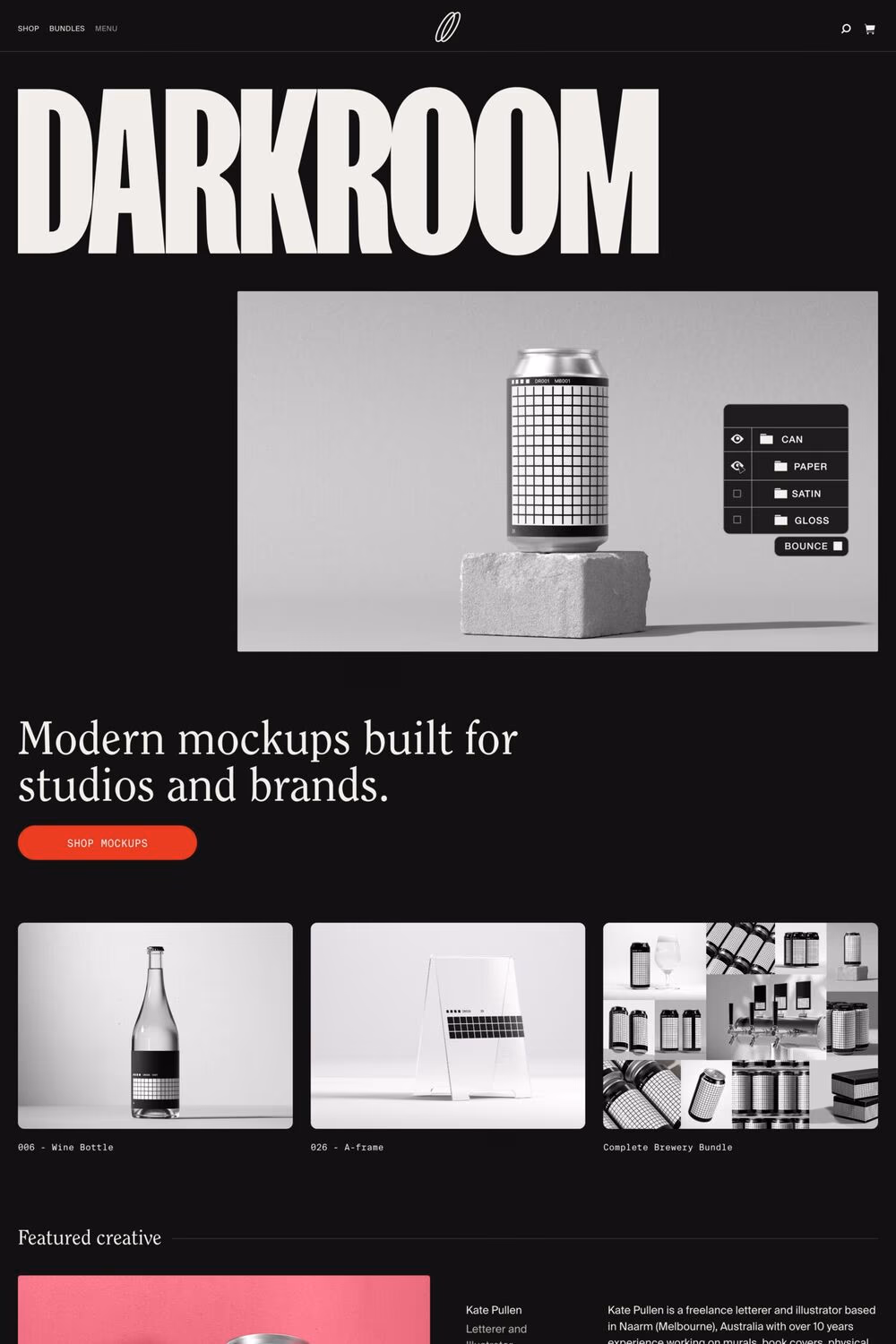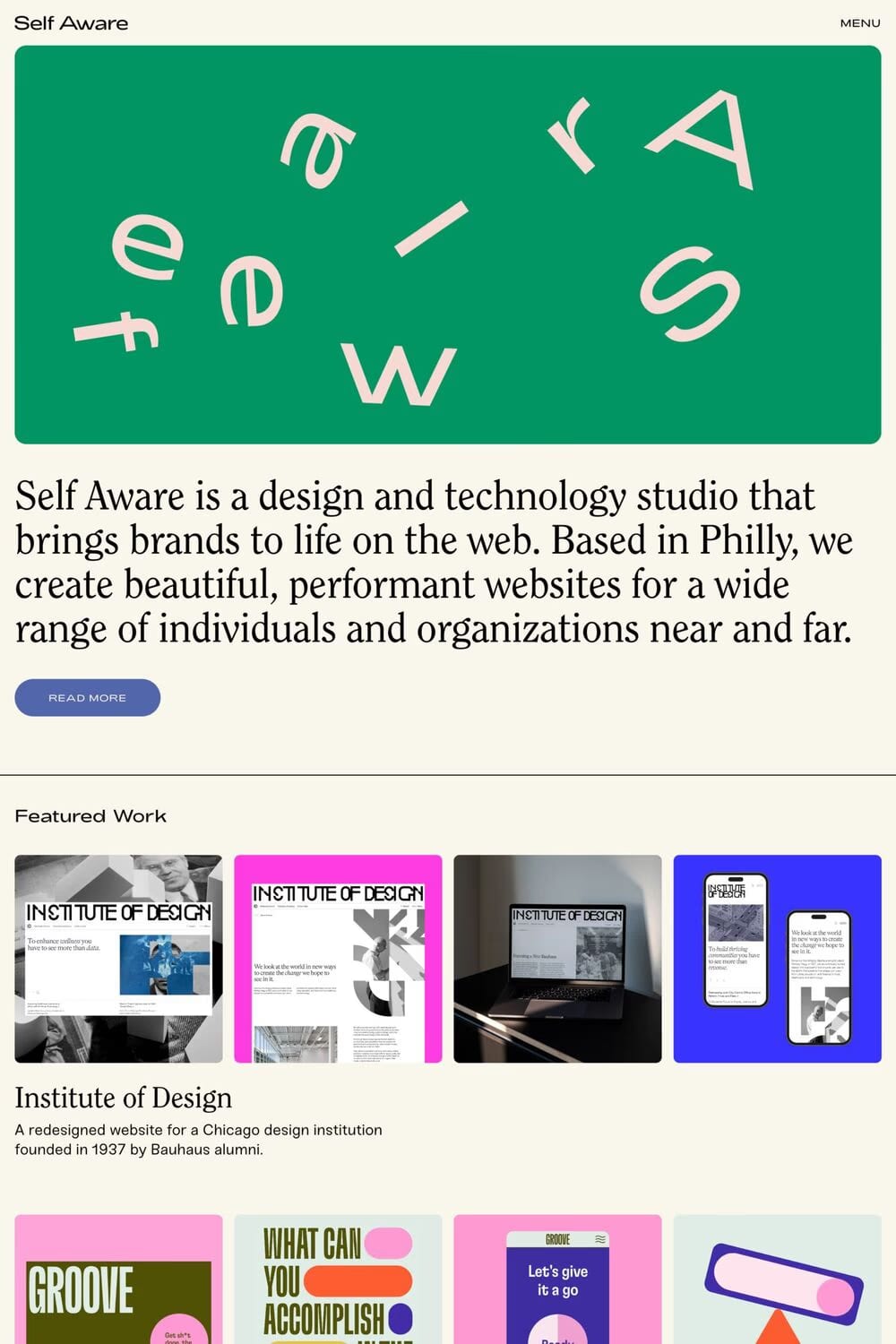
ITC Clearface is a serif typeface from ITC.
The Clearface types were originally designed by Morris Fuller Benton in 1907. Their forms expressed the Zeitgeist of the turn of the 20th century; typical and distinguishing characteristics are the forms of the “a” and the “k.” The ATF version did not include an accompanying Italic.